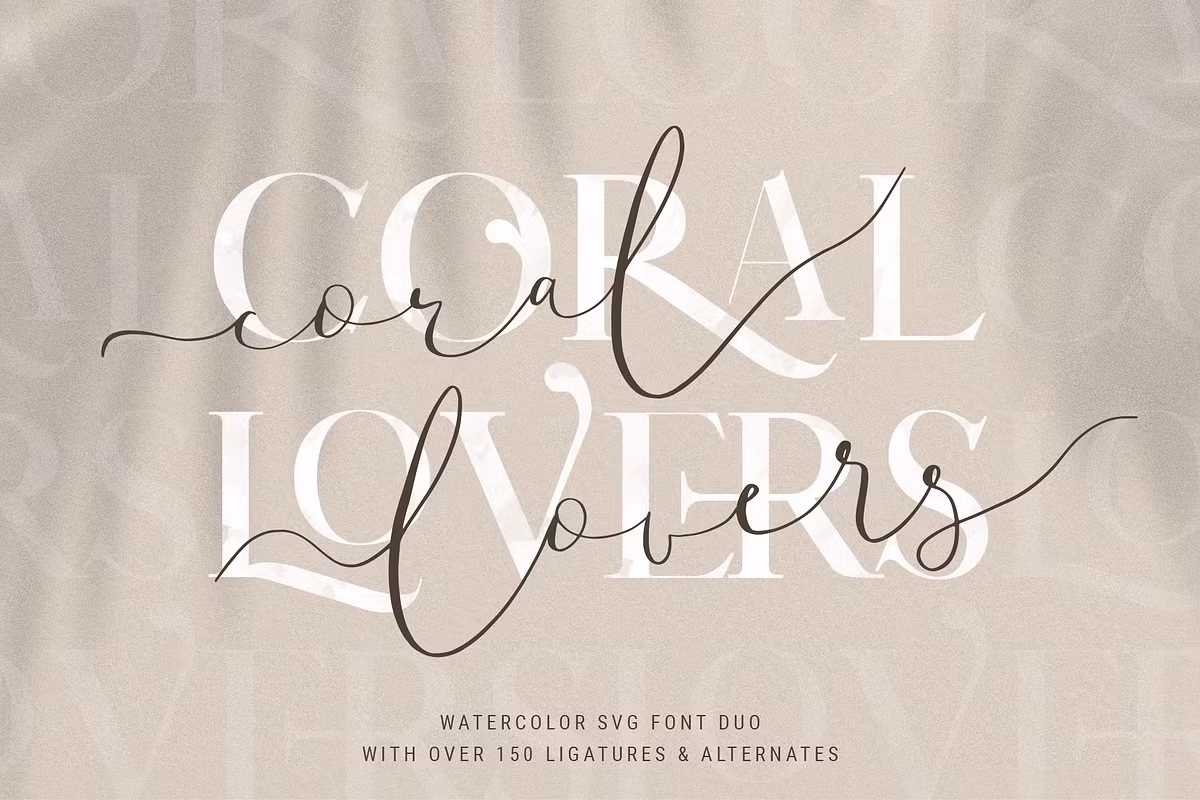
Delicate, artistic, and truly eye-catching, Coral Lovers SVG Watercolor Font Duo Free Download is a beautiful combination of hand-painted watercolor script and a clean complementary font. Designed for creative professionals, this font duo is ideal for wedding designs, feminine branding, social media posts, invitations, and artistic packaging.
What makes Coral Lovers stand out is its vibrant SVG texture that replicates real watercolor brushstrokes—bringing a soft, organic feel to your typography. Paired with its clean serif or sans font, you have the perfect combo for crafting visually stunning and balanced designs.